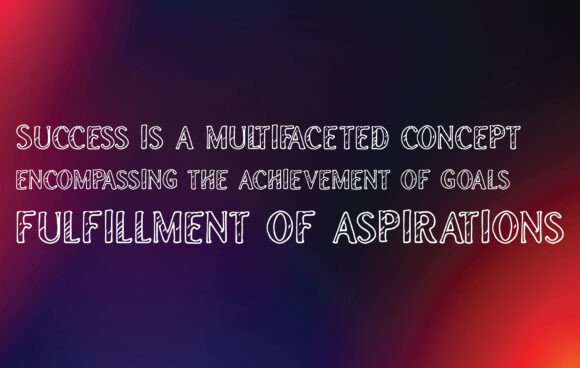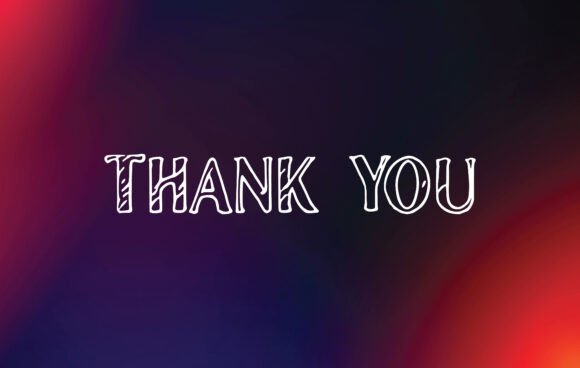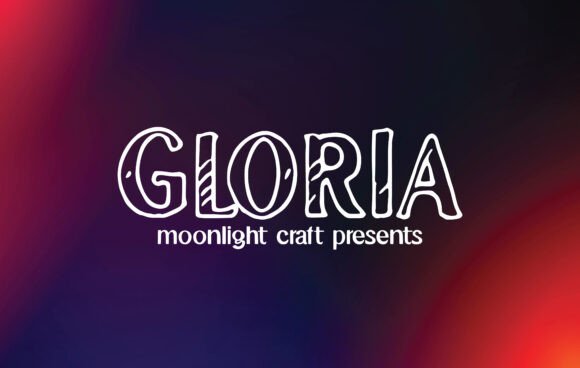
Discover the Versatility of Gloria Font: Elevate Your Designs to New Heights
In the world of typography, fonts play a crucial role in bringing creative ideas to life. Among the numerous fonts available, Gloria Font stands out as a true favorite among designers and crafters. This font is designed to be a game-changer, offering a unique blend of legibility, style, and versatility that can take your designs to the highest level.
Legible and Visually Appealing
Gloria Font boasts exceptional legibility, making it an excellent choice for both title and body text. Its clear and crisp design ensures that your message is conveyed effectively, whether you’re creating a magazine headline, a social media post, or a wedding invitation. The font’s aesthetic appeal is undeniable, with a sophisticated and elegant look that adds a touch of refinement to any design.
A World of Design Possibilities
One of the key benefits of Gloria Font is its incredible versatility. This font can be used in a wide range of design applications, including:
• Magazine headlines: Add a touch of glamour to your magazine covers with Gloria Font’s bold and eye-catching design.
• T-shirts: Create stylish and memorable apparel with Gloria Font’s unique and legible design.
• Social media: Elevate your social media presence with Gloria Font’s modern and sophisticated look.
• Branding: Establish a strong brand identity with Gloria Font’s distinctive and recognizable style.
• Wedding invitations: Add a touch of elegance to your wedding stationery with Gloria Font’s beautiful and refined design.
• Cards: Create stunning greeting cards, invitations, and more with Gloria Font’s versatility and charm.
Why Choose Gloria Font?
With so many fonts available, why choose Gloria Font? Here are just a few reasons why this font stands out:
• Unique style: Gloria Font offers a distinctive and stylish design that sets it apart from other fonts.
• Exceptional legibility: This font is designed to be easy to read, making it perfect for both title and body text.
• Versatility: Gloria Font can be used in a wide range of design applications, from magazines to social media.
• Elegance: This font exudes sophistication and refinement, making it perfect for high-end designs.
Tips for Using Gloria Font
To get the most out of Gloria Font, here are a few tips to keep in mind:
• Experiment with different sizes: Gloria Font looks great in a variety of sizes, from large headlines to smaller body text.
• Play with colors: This font looks stunning in a range of colors, from bold and bright to subtle and pastel.
• Mix and match: Combine Gloria Font with other fonts to create a unique and eye-catching design.
Gloria Font is a true favorite among designers and crafters, and for good reason. This font offers a unique blend of style, legibility, and versatility that makes it perfect for a wide range of design applications. Whether you’re creating a magazine headline, a social media post, or a wedding invitation, Gloria Font is sure to elevate your designs to new heights. So why wait? Discover the power of Gloria Font today and take your creative ideas to the next level!